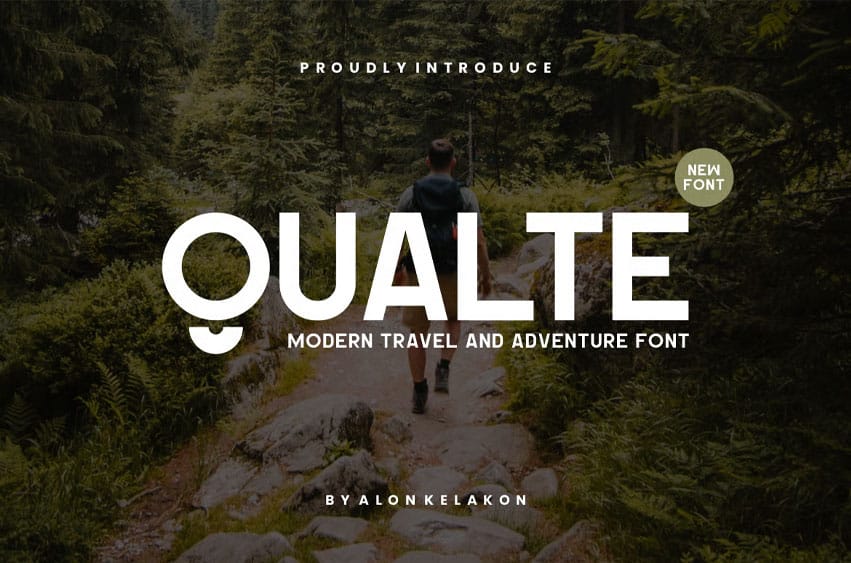
Qualte Font Modern travel and adventure Font is unique .
Ready to use for your design like labeling, movie sceen, poster, movie title, gigs, album covers, logos, and much more.